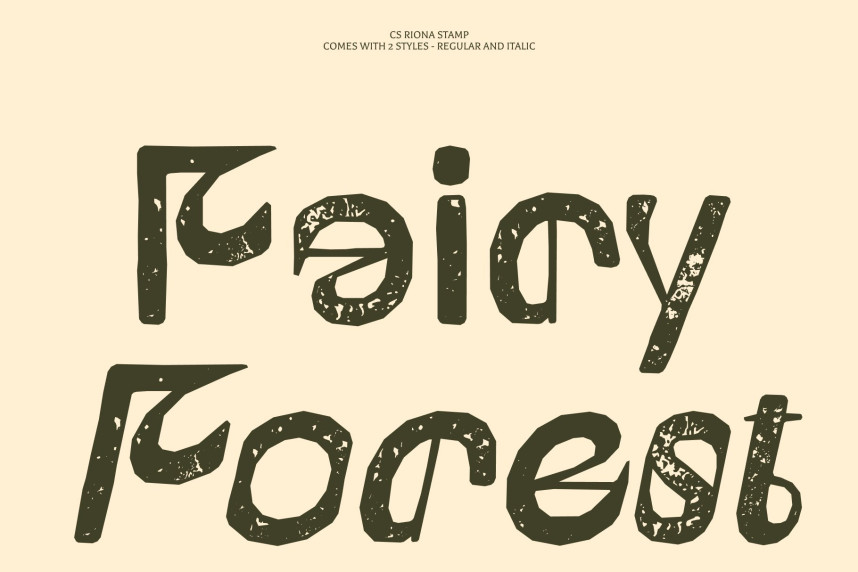
CS Riona Stamp Font
CS Riona Stamp Font – Modern Sans Serif Display Font: Where Funky Energy Meets Vintage Stamp Texture
Bold Letterforms with a Funky, Playful Personality
This is a modern sans serif display font designed to captivate with its bold, distinctive style. Featuring expressive letterforms with a funky, playful vibe and a unique edge, it brings vibrant energy and personality to every design. Its confident structure and contemporary aesthetic make it an ideal choice for eye-catching display typography that refuses to blend into the background.